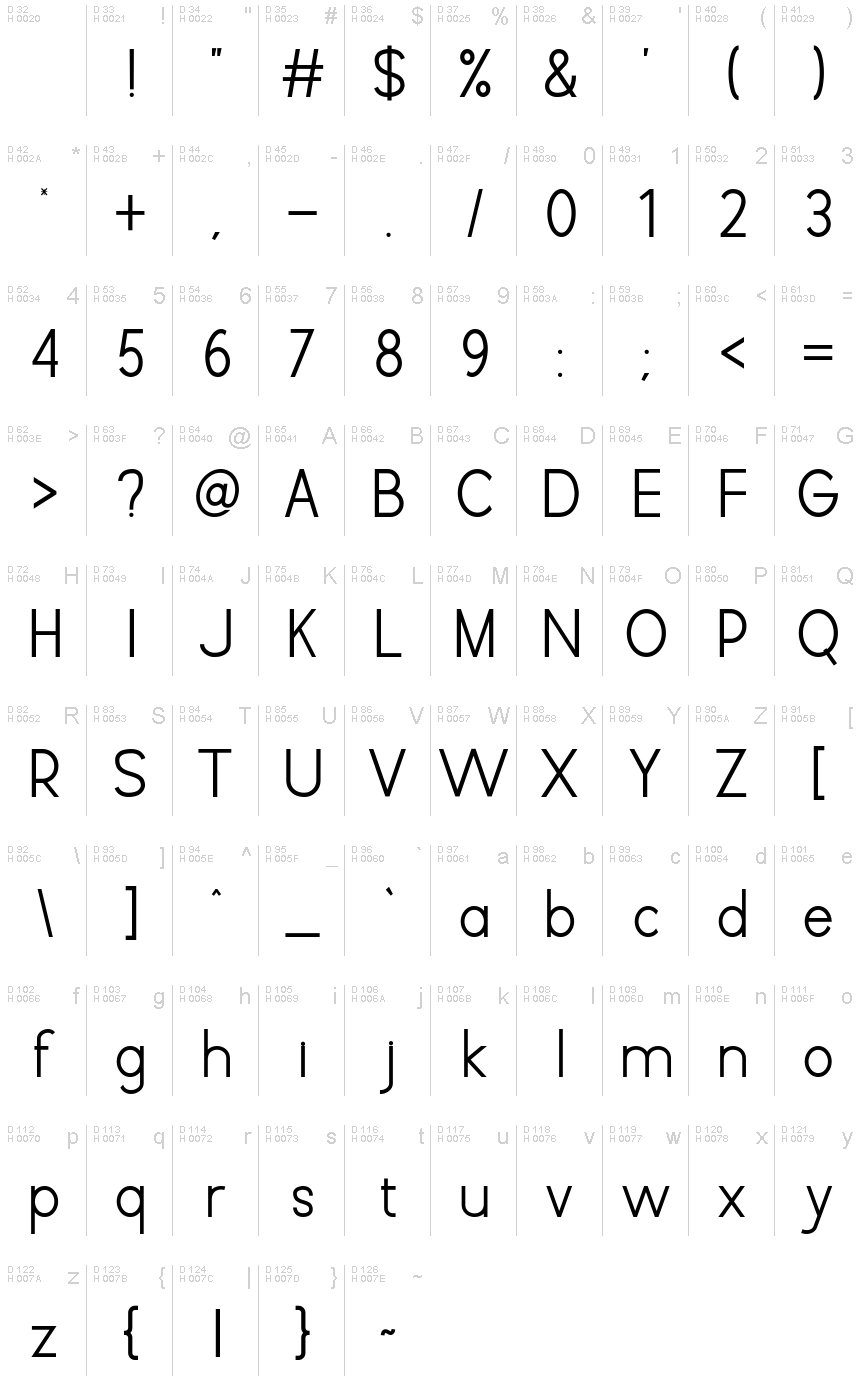
Sweet Bread Bold
Sweet Bread is a striking sans-serif font, designed by Rvandtype, that exudes a captivating blend of elegance and modernity. With its clean lines and carefully sculpted letterforms, this font radiates a sense of sophistication and refinement. The light weight of Sweet Bread adds a delicate touch, creating a visually appealing and versatile typeface.
The font's unique characteristics make it a compelling choice for a wide range of design applications, from branding and editorial layouts to packaging and digital interfaces. Its legibility and adaptability ensure seamless integration across various mediums, allowing designers to elevate the visual impact of their projects with a touch of timeless style.